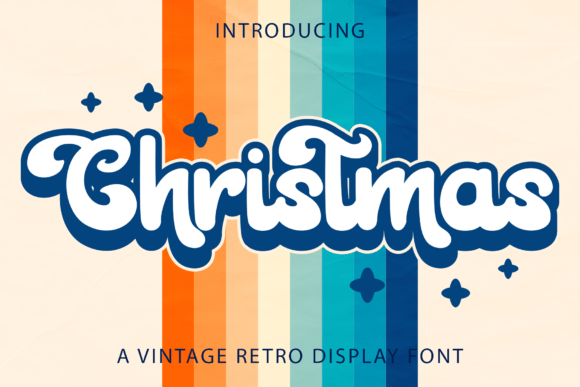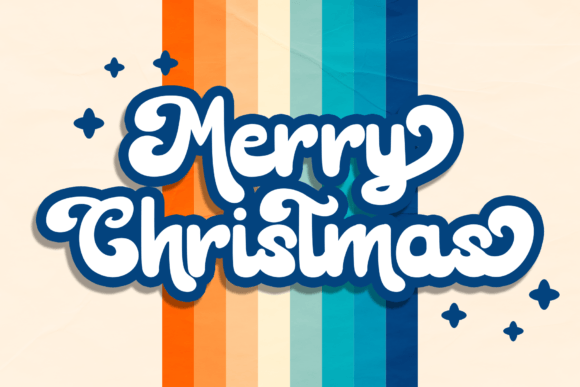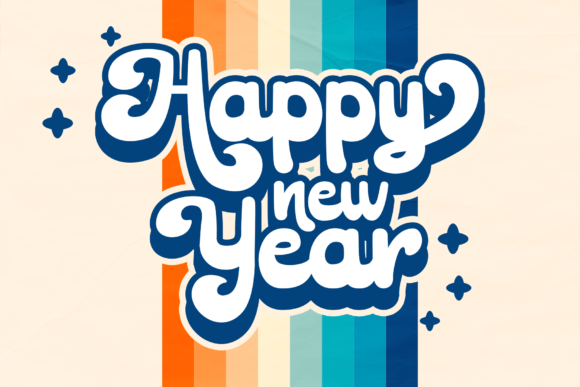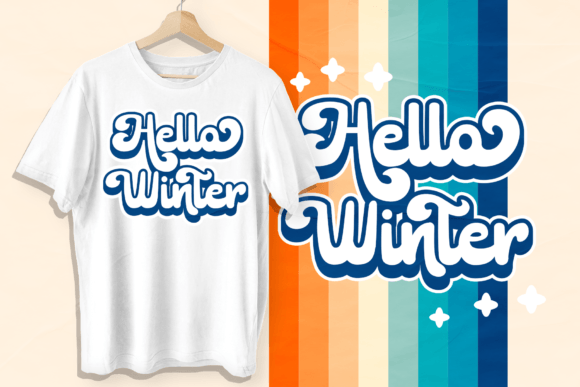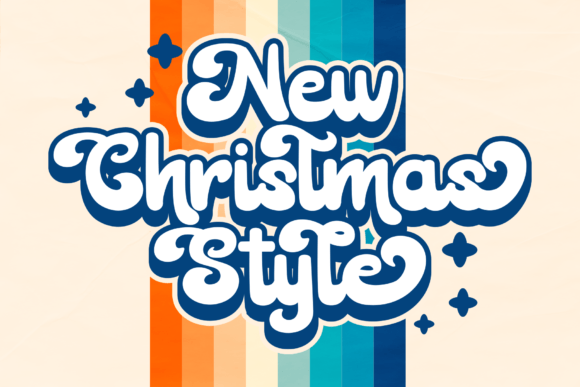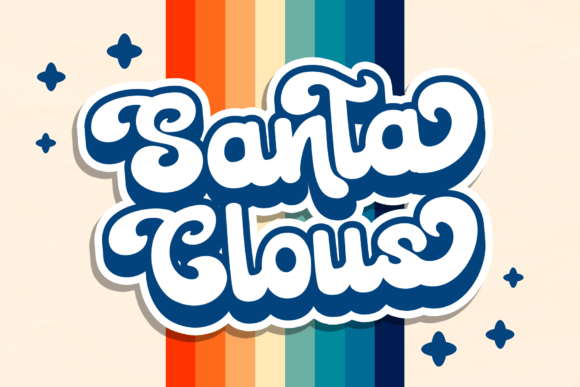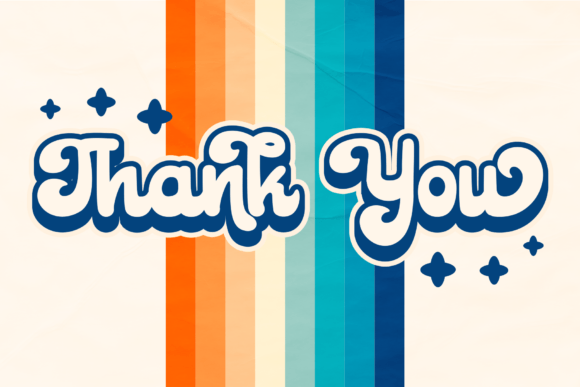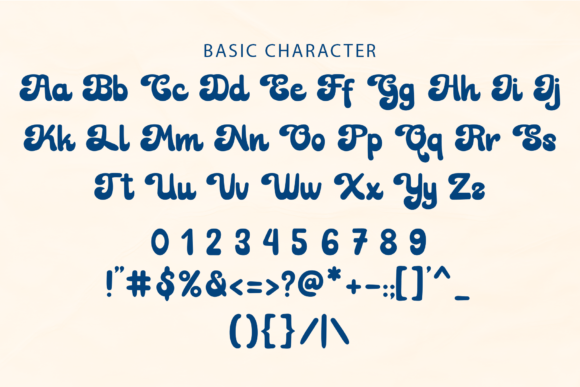
Christmas Bold is a cool, vintage-style handwritten font. Use it to add that special retro touch to any design idea! It can be used for logos, branding, invitations, stationery, wedding designs, social media posts, and much more!